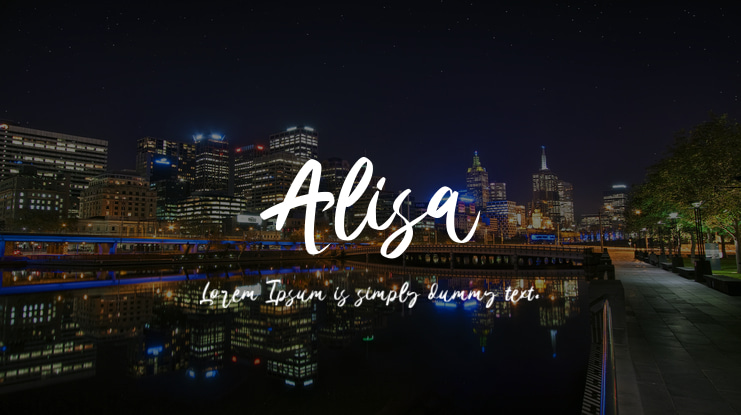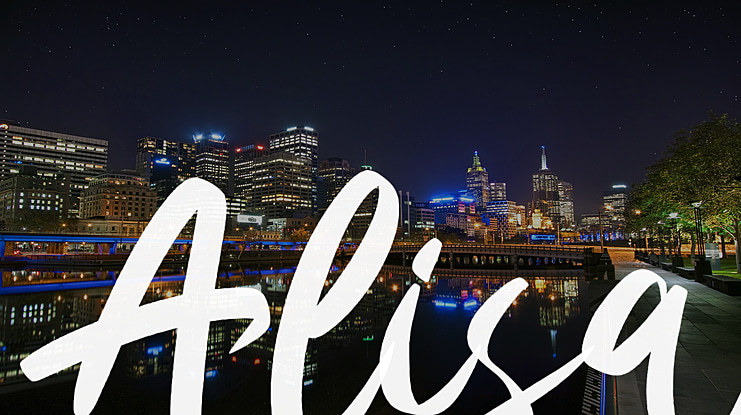
Alisa Font Family
Alisa! A modern calligraphy font with two styles, regular and slant. Alisa font is suitable for branding, logotype, apparel, T-shirt, Hoodie, product packaging, quotes, flyer, poster, advertising, etc.
1. Uppercase and lowercase characters
2. Multilingual support.
3. Numerals, punctuations, and alternates